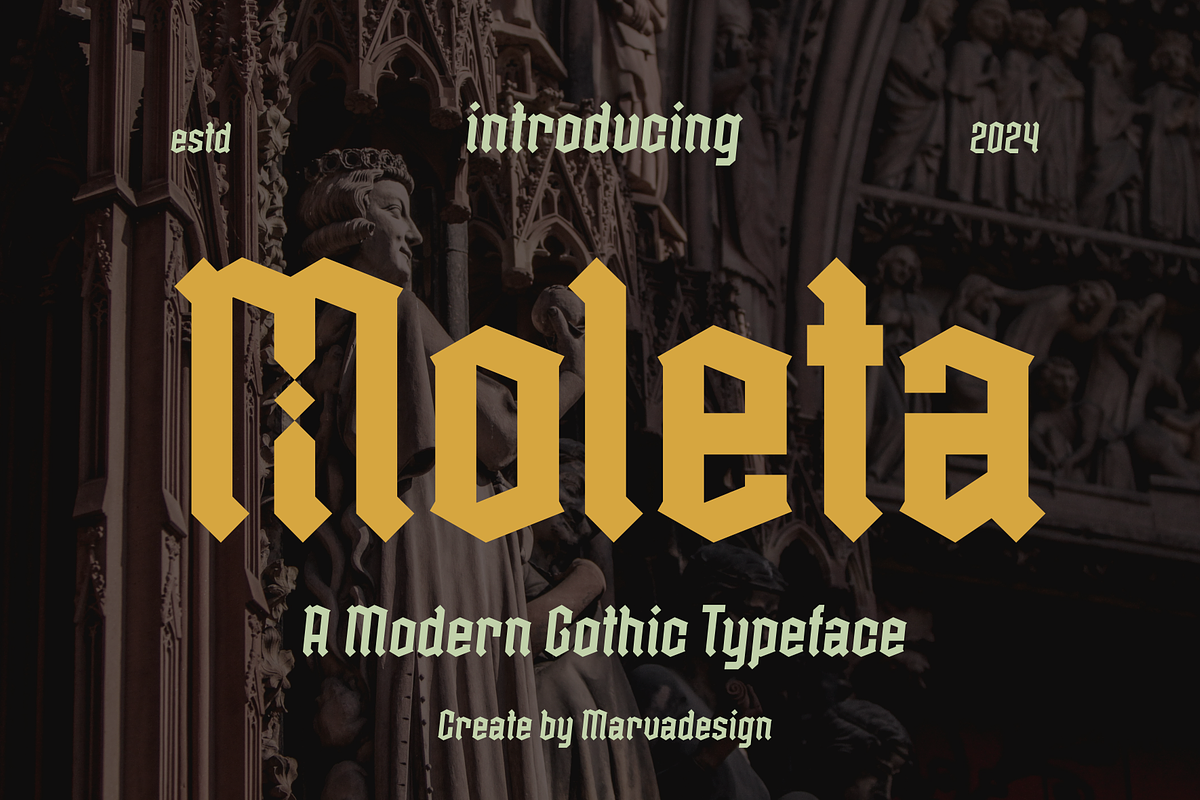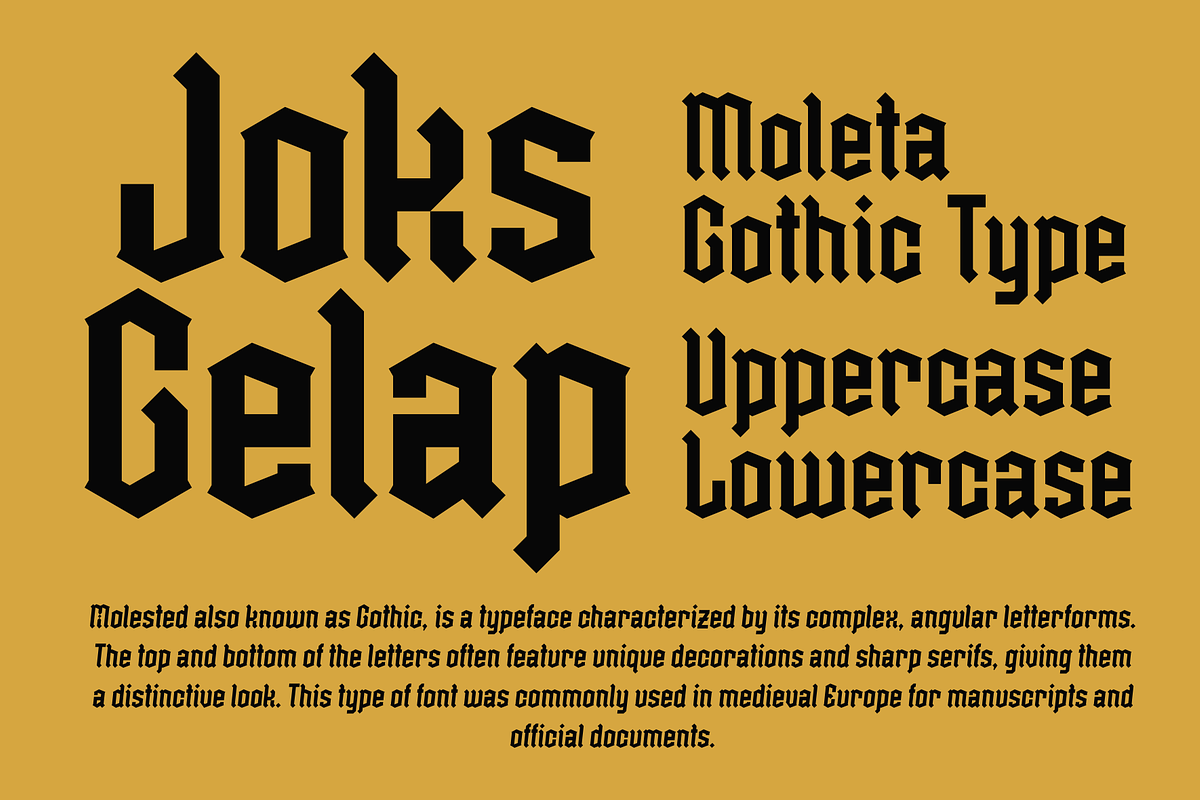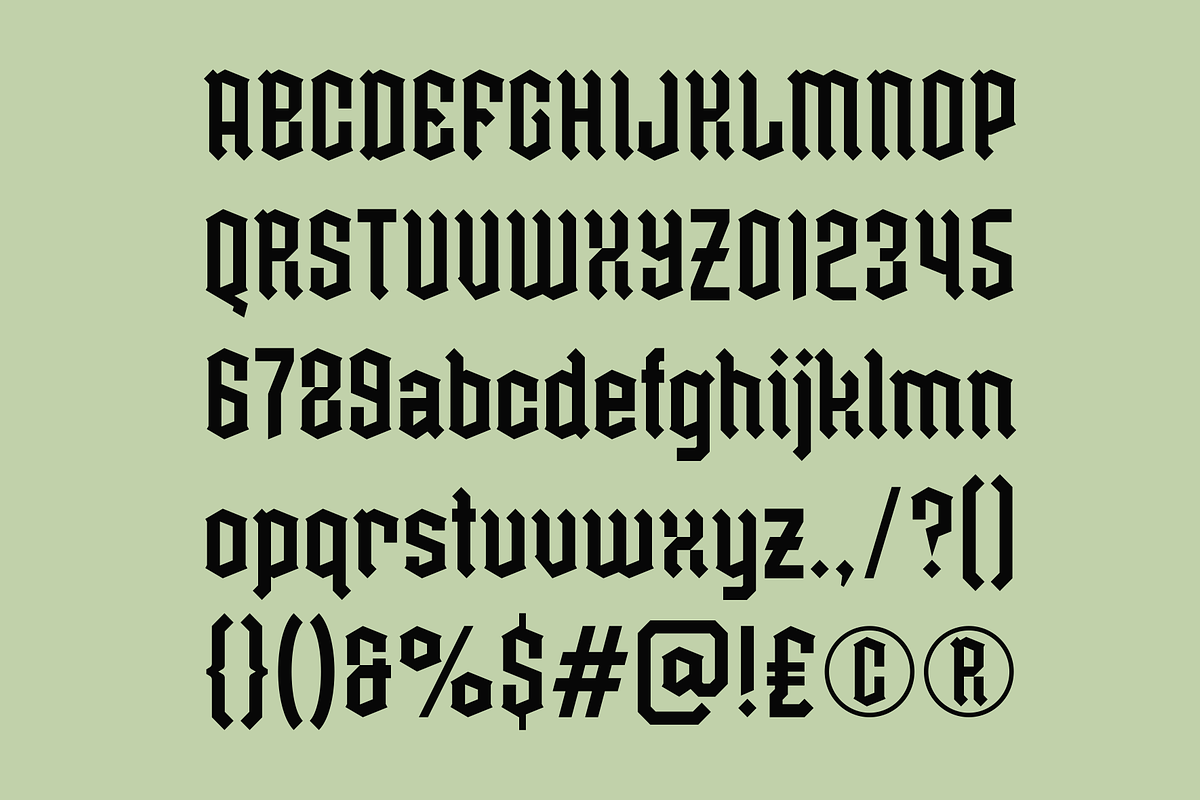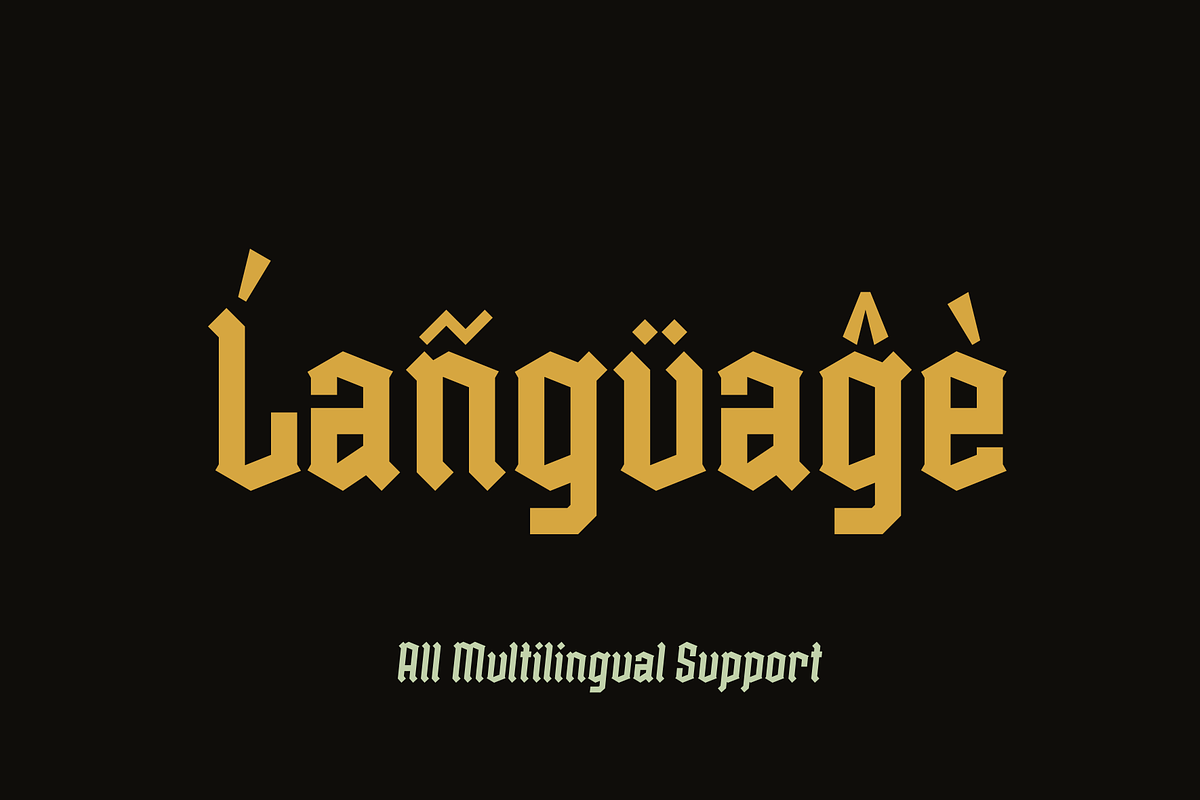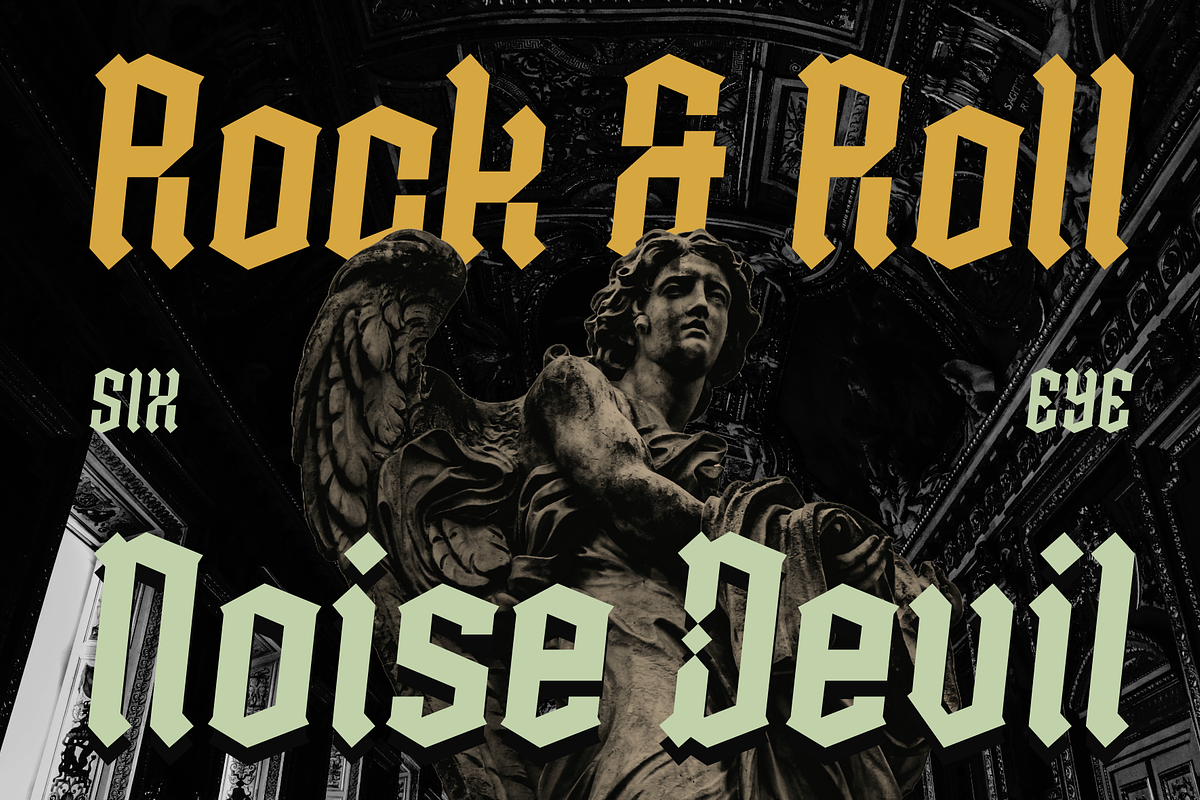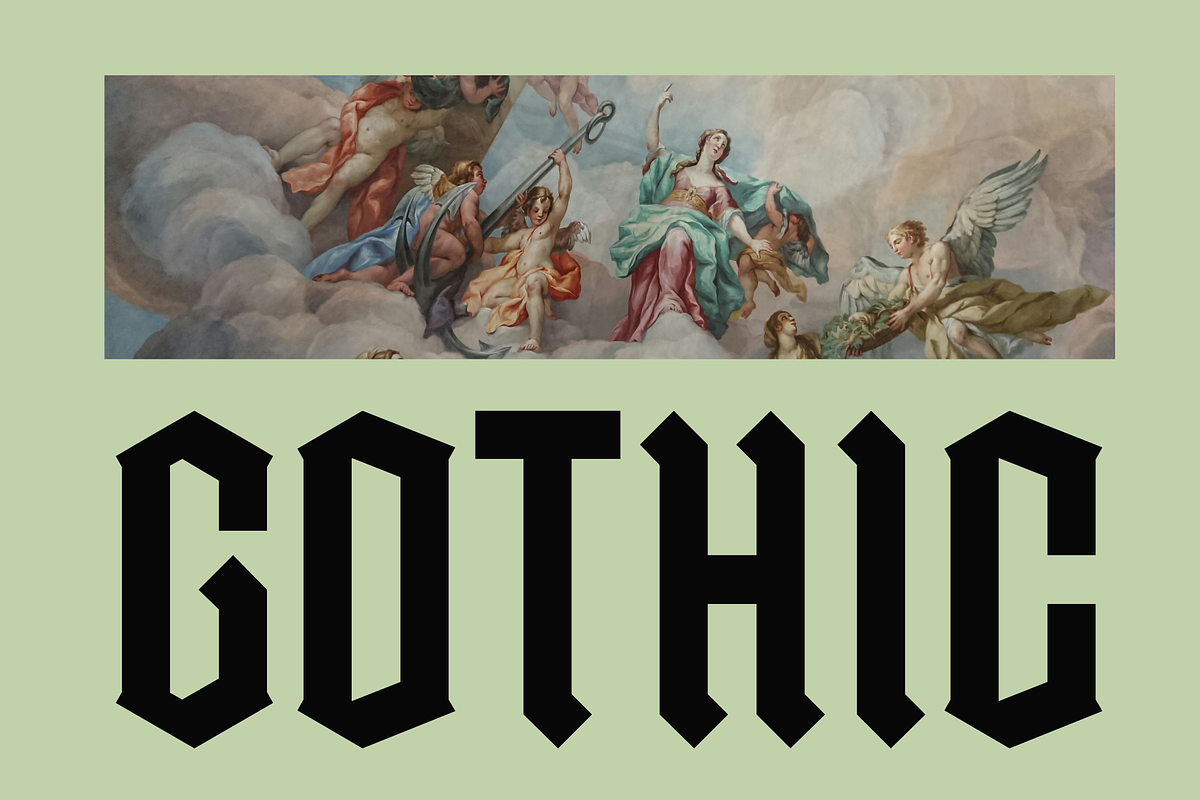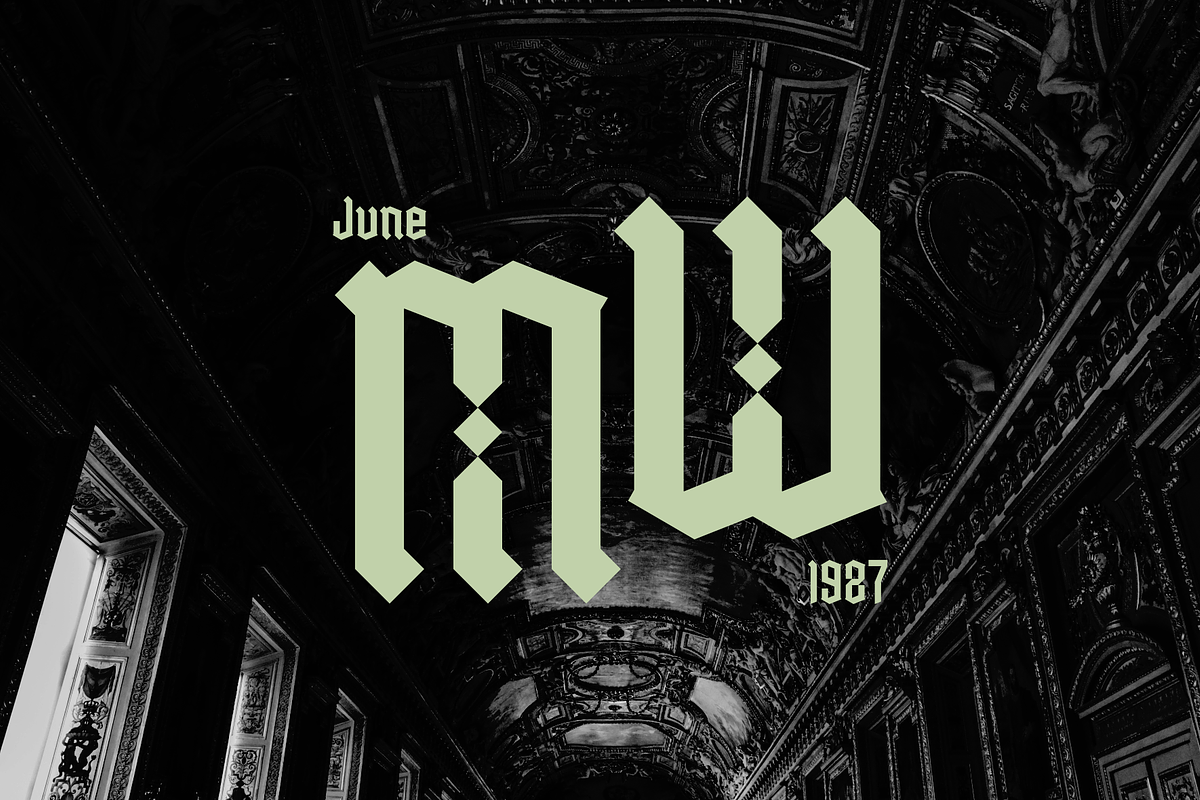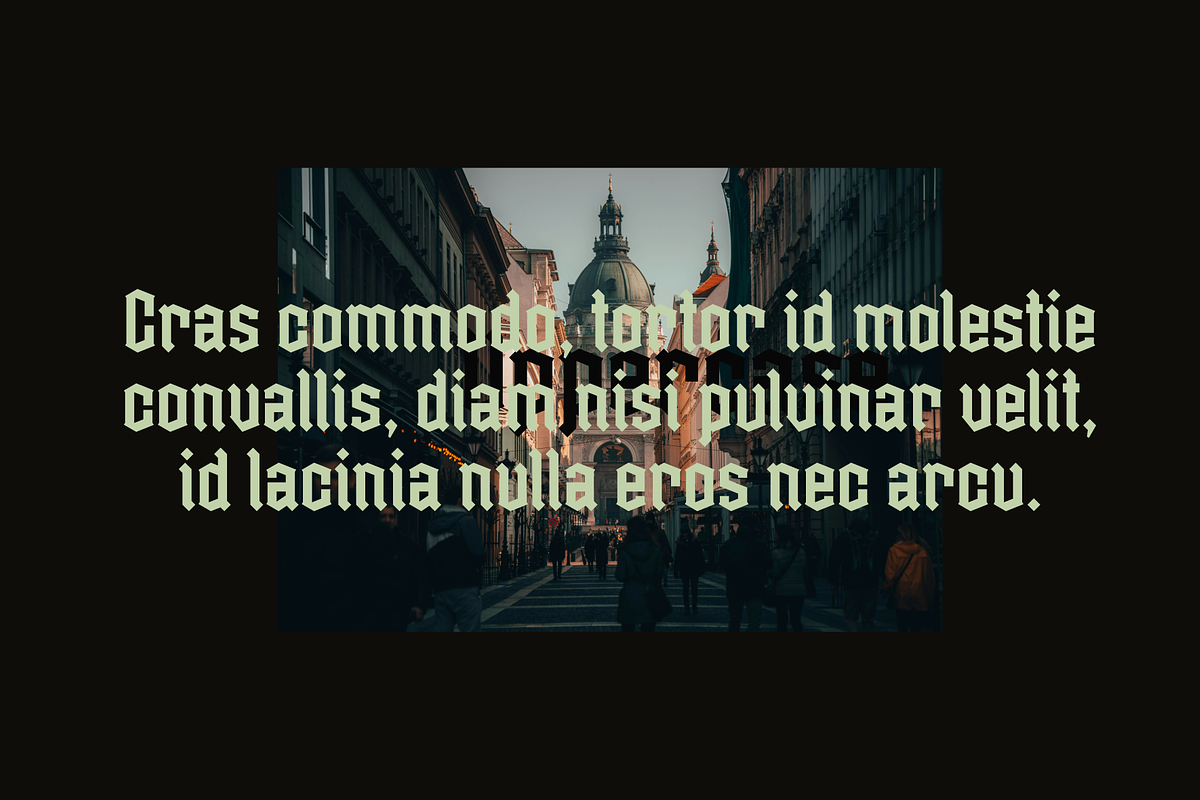
Moleta - Modern Gothic
Moleta also known as Gothic, is a typeface characterized by its complex, angular letterforms. The top and bottom of the letters often feature unique decorations and sharp serifs, giving them a distinctive look. This type of font was commonly used in medieval Europe for manuscripts and official documents. This font is often associated with traditional and formal contexts, such as invitations, diplomas, and certificates. However, they can also add a touch of historical elegance to modern designs, such as book covers, branding and posters. It's important to note that while these fonts are visually striking, they can sometimes be difficult to read, especially for those unfamiliar with the style.